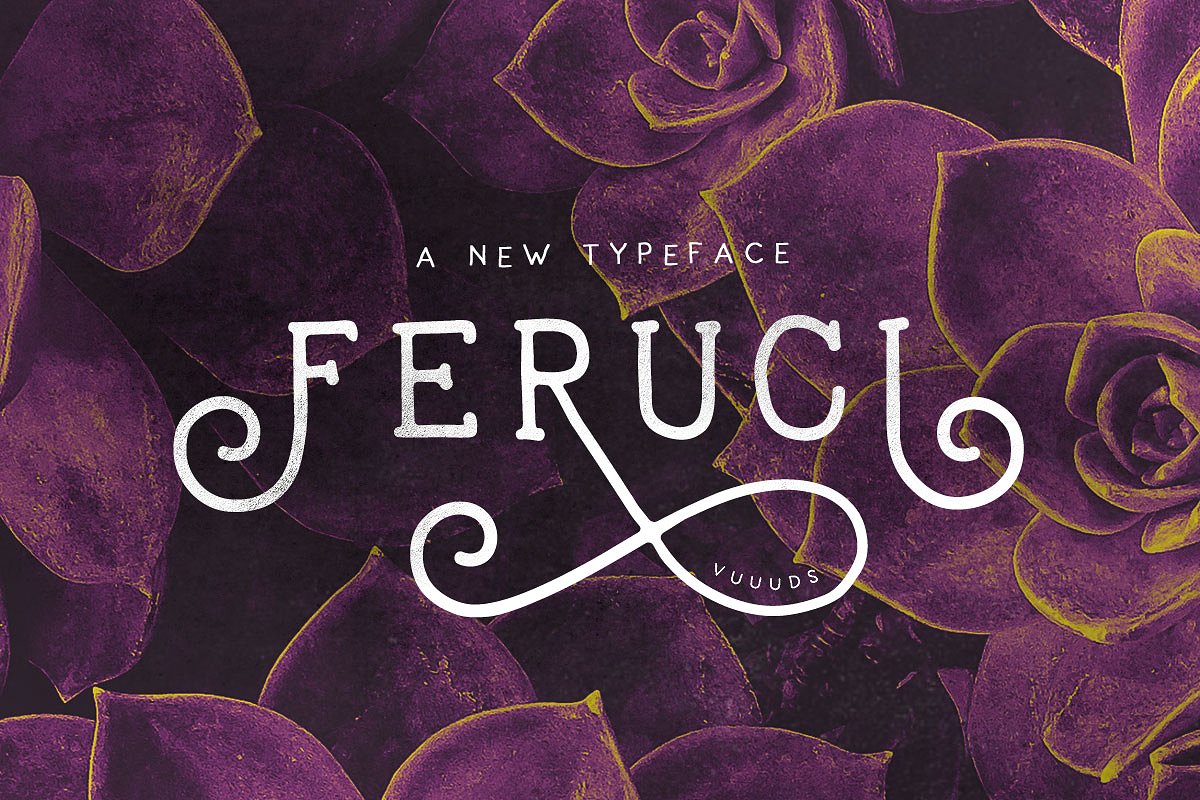
Feruci
Feruci Typeface
Feruci is modern display font, every single letters have been carefully crafted. This font will perfect for many different project ex: quotes, blog header, poster, wedding, branding, logo, fashion, apparel, letter, invitation, stationery, etc.